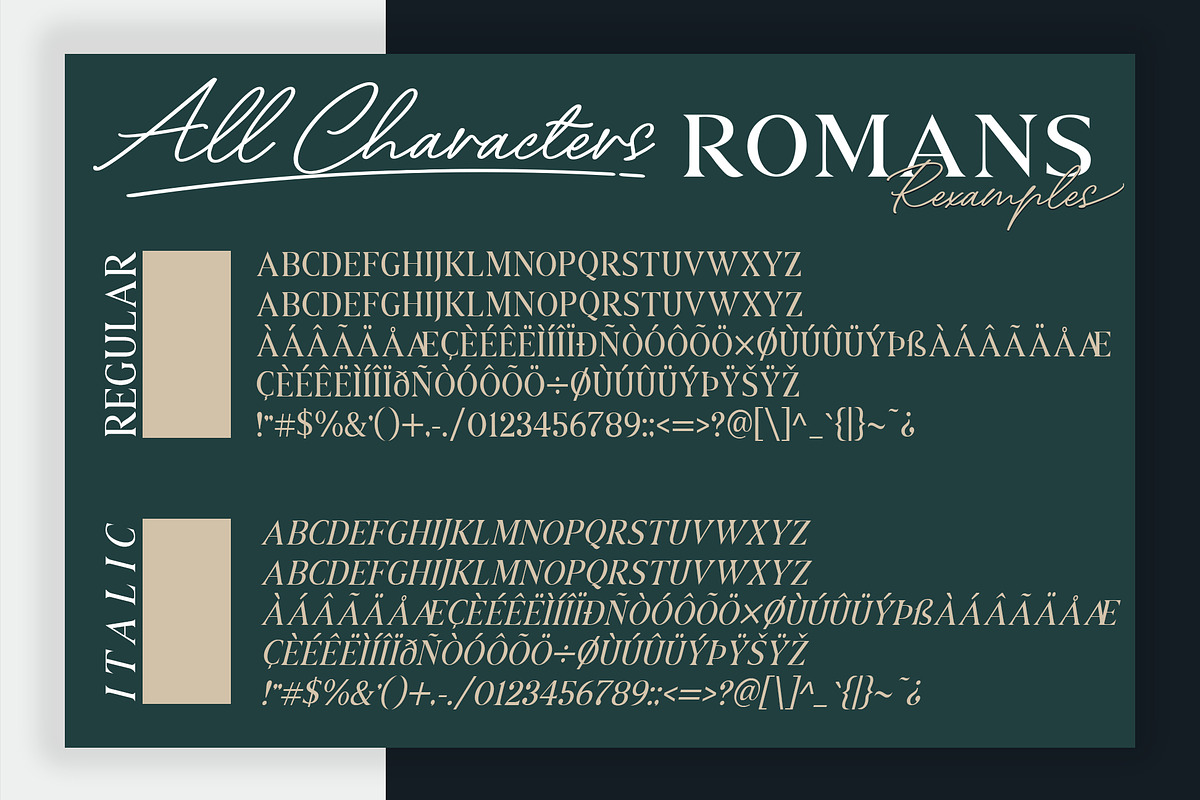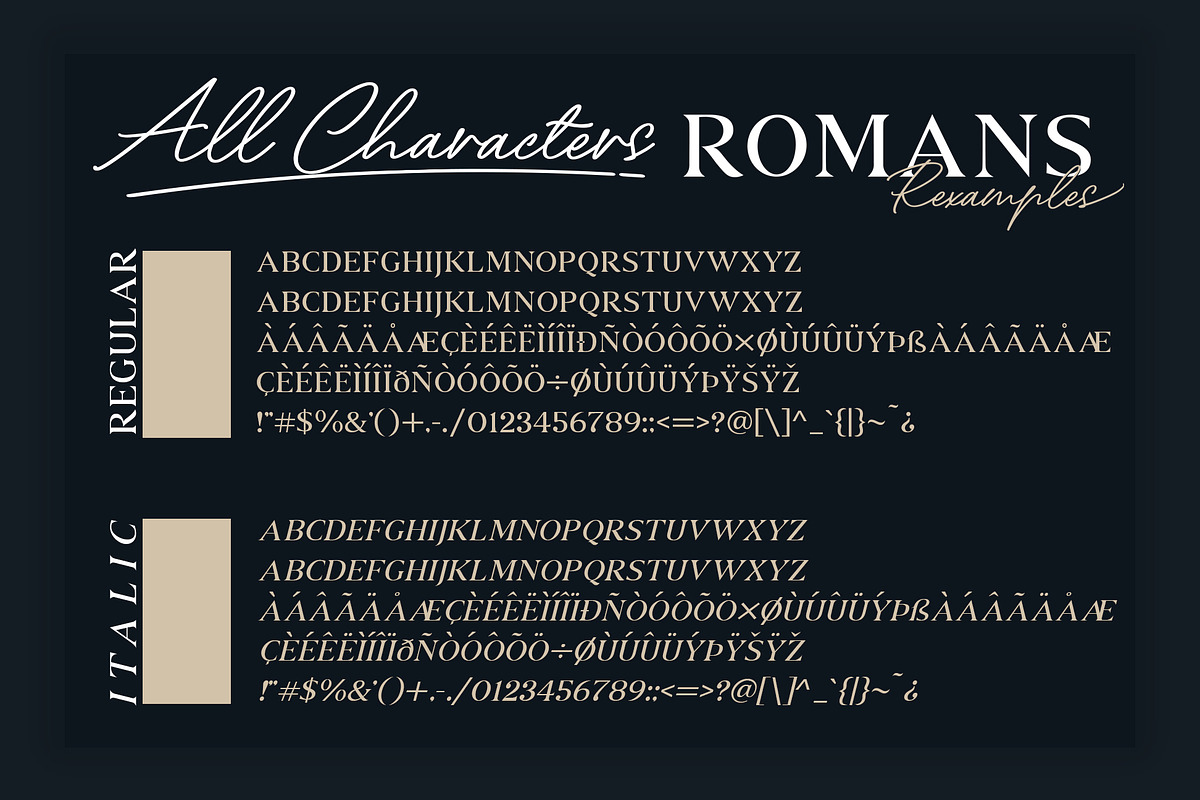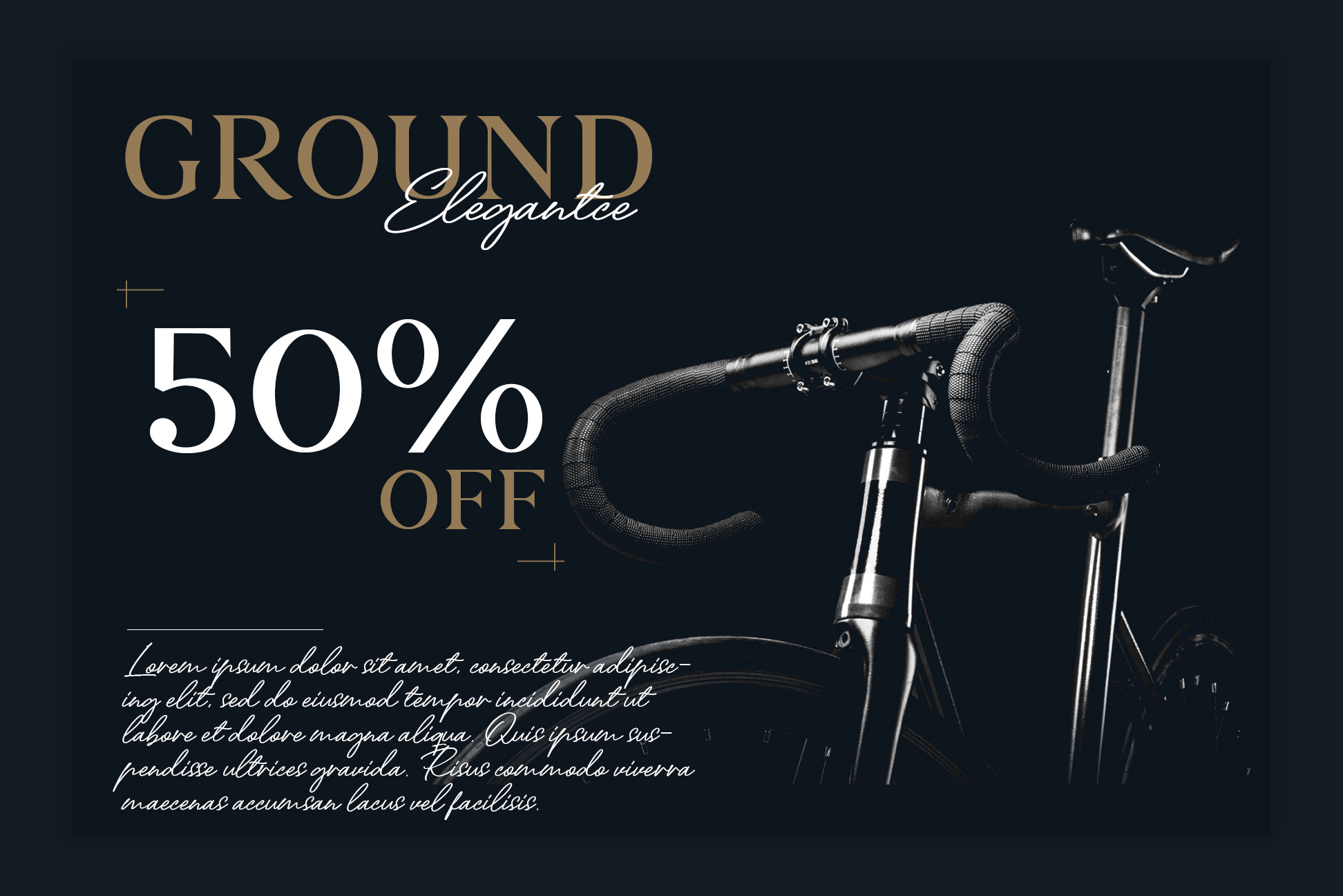
ROMANS Rexamples Font Duo
Introducing ROMANS Rexamples Font Duo offers beautiful typographic harmony for a diversity of design projects, including logos & branding, wedding designs, social media posts, advertisements & product designs.